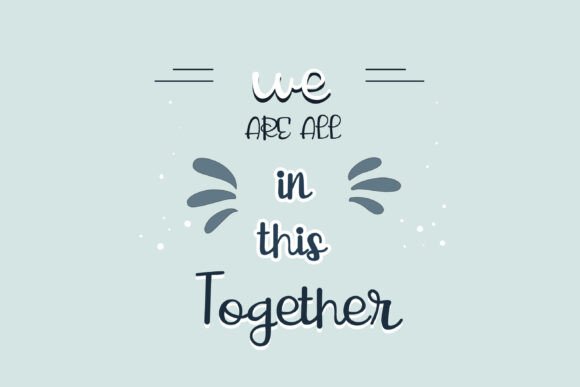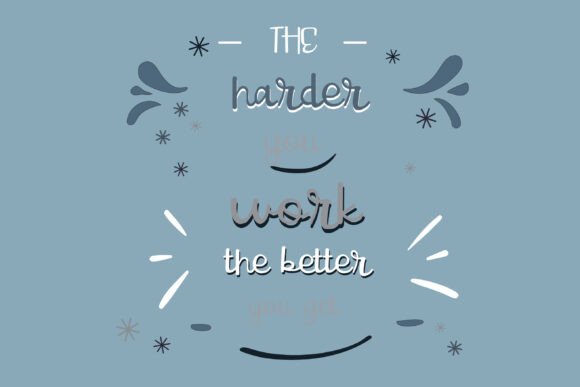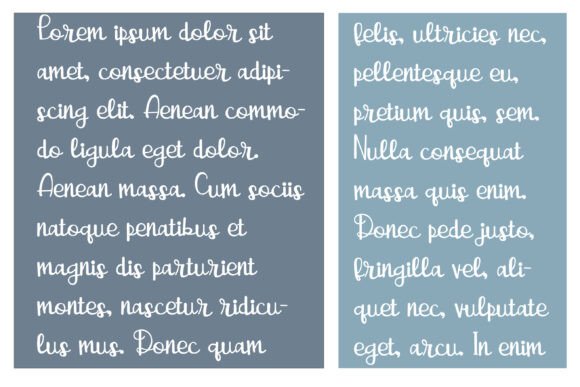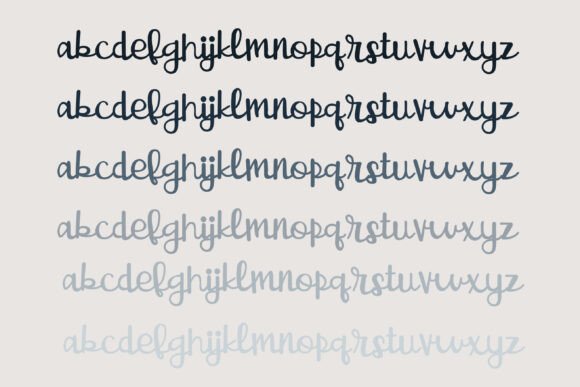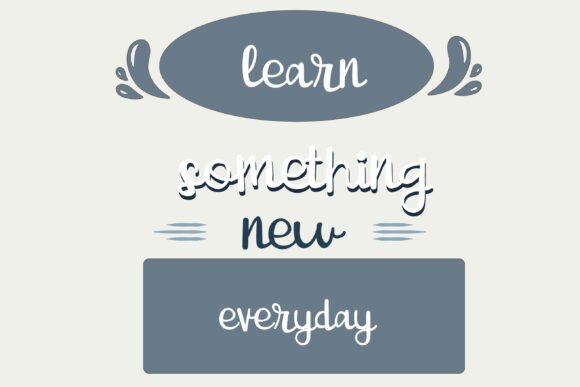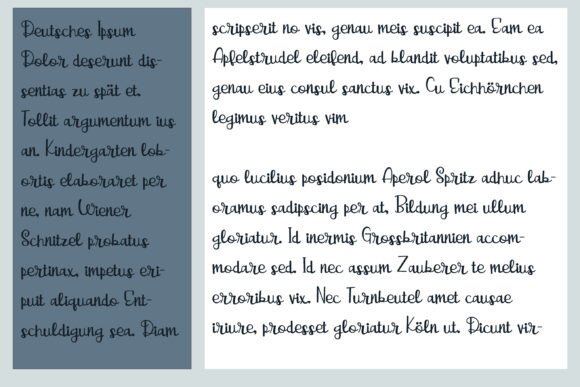
Introduction to Polarity Font
As a designer, you’ve probably found yourself pouring over a blank canvas, trying to find the perfect font to bring your creative project to life. And then, it hits you – the perfect combination of style and personality that sets your design apart from the rest. For many, that moment is made possible by the Polarity Font, a stunning hand-crafted font that exudes a casual, yet elegant feel.
With its bold and regular versions, the Polarity Font offers endless possibilities for designers looking to add a touch of personality to their designs. Whether you’re working on a high-quality brochure, a wedding invitation, or a social media graphic, this versatile font is sure to make a statement. And the best part? It’s available for free download, making it an invaluable design resource for creatives of all levels.
Key Features of Polarity Font
- Includes a wide range of glyphs and characters for versatility in typography
- Designed with a modern and sleek aesthetic, perfect for contemporary designs
- Size: Includes 8 font styles, ranging from Light to Bold, for added flexibility
Honest Review: Polarity Font
I recently had the chance to work with the Polarity Font for a creative project, and I must say it was a great experience. The font is a free download, which is always a plus when it comes to design resources. The Polarity Font has a sleek and modern design that’s perfect for high-quality projects.
- What works well: ✨ The font is highly customizable and has a transparent background, making it easy to integrate with any design. It’s also incredibly versatile and can be used for a variety of creative projects.
However, there are a few limitations to consider. The Polarity Font can be quite heavy on the design, so it may not be suitable for smaller projects. Additionally, the font may require some tweaking to get the perfect balance of style and legibility.
Overall, I was impressed with the Polarity Font and would definitely recommend it to designers looking for a high-quality design resource. Its versatility and customizability make it a great choice for creative projects, and its transparent background makes it easy to integrate with other designs.
Polarity Font
The Polarity Font is a versatile design resource that can elevate your creative project with its high-quality typography. This free download offers a unique aesthetic that can be tailored to various design needs.
Tips for Getting the Most Out of the Polarity Font
1. Experiment with different font sizes and colors to create visual interest.
2. Use the Polarity Font with transparent backgrounds to add depth and dimension.
3. Combine the Polarity Font with other design elements to create a cohesive look.
The Polarity Font is perfect for:
- Marketing materials and advertising
- Editorial and publishing design
- Presentations and educational materials
Alternatives to Polarity Font
Open Sans is a highly legible sans-serif font that is ideal for creative projects and design resources. It is free to download and offers a high-quality, modern look. Open Sans is suitable for a variety of applications, including digital signage, website headers, and mobile apps.
Compared to Polarity Font, Open Sans has a more straightforward and simple design. It is also more versatile and can be used in a wide range of contexts.
Montserrat is a geometric sans-serif font that is perfect for design projects requiring a modern, urban feel. It is available for free download and features a high-quality, transparent background. Montserrat is ideal for use in website headers, logos, and other design elements where a bold, urban aesthetic is desired.
What is the recommended size range for using the Polarity Font in a design project?
The Polarity Font is designed to be versatile and can be used in a wide range of font sizes. However, for optimal legibility, we recommend using the font at sizes between 12pt and 48pt. This range allows the font to be easily readable while still maintaining its unique character and style.